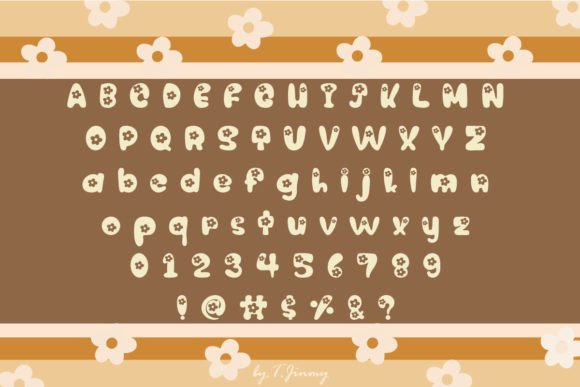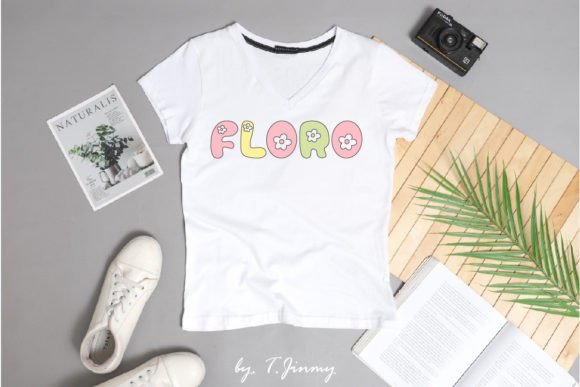
Introducing Floro Font: The Cute and Decorative Font for Your Creative Projects
Are you a designer, crafter, or DIY enthusiast looking for a beautiful and unique font to elevate your creative projects? Look no further than Floro Font! This adorable font style is perfect for adding a touch of personality to your logos, branding, social media graphics, and crafty DIY projects. In this article, we’ll explore the features and benefits of Floro Font, and show you how to make the most of this versatile and eye-catching font.
What is Floro Font?
Floro Font is a decorative font that is designed to add a touch of cuteness and whimsy to your designs. With its playful and elegant style, Floro Font is perfect for creating visually appealing graphics that capture the attention of your audience. Whether you’re designing a logo, creating social media graphics, or working on a crafty DIY project, Floro Font is the perfect fit.
Key Features of Floro Font
So, what makes Floro Font so special? Here are some of its key features:
- Cute and playful style: Floro Font has a unique and adorable style that is sure to capture the attention of your audience.
- Decorative and elegant: With its elegant and decorative style, Floro Font is perfect for creating sophisticated and eye-catching graphics.
- Highly versatile: Floro Font can be used for a wide range of creative projects, from logos and branding to social media graphics and crafty DIY projects.
Uses for Floro Font
So, how can you use Floro Font in your creative projects? Here are some ideas to get you started:
- Logos and branding: Use Floro Font to create a unique and memorable logo that reflects your brand’s personality.
- Social media graphics: Add a touch of personality to your social media graphics with Floro Font.
- Crafty DIY projects: Use Floro Font to add a personal touch to your crafty DIY projects, such as handmade cards, gift tags, and more.
- Stationery and invitations: Use Floro Font to create beautiful and eye-catching stationery and invitations.
Tips for Using Floro Font
Here are some tips for getting the most out of Floro Font:
- Experiment with different colors: Floro Font looks great in a variety of colors, so don’t be afraid to experiment and find the perfect color scheme for your project.
- Mix and match with other fonts: Floro Font pairs well with other fonts, so try mixing and matching it with different fonts to create a unique and eye-catching look.
- Use it sparingly: While Floro Font is a beautiful font, it can be overwhelming if used too much. Use it sparingly to add a touch of personality to your design.
| Font Name | Floro Font |
| Author | T.Jinmy |
In conclusion, Floro Font is a beautiful and versatile font that is perfect for designers, crafters, and DIY enthusiasts. With its cute and playful style, Floro Font is sure to add a touch of personality to your creative projects. Whether you’re designing a logo, creating social media graphics, or working on a crafty DIY project, Floro Font is the perfect fit. So why not give it a try and see how it can elevate your designs?